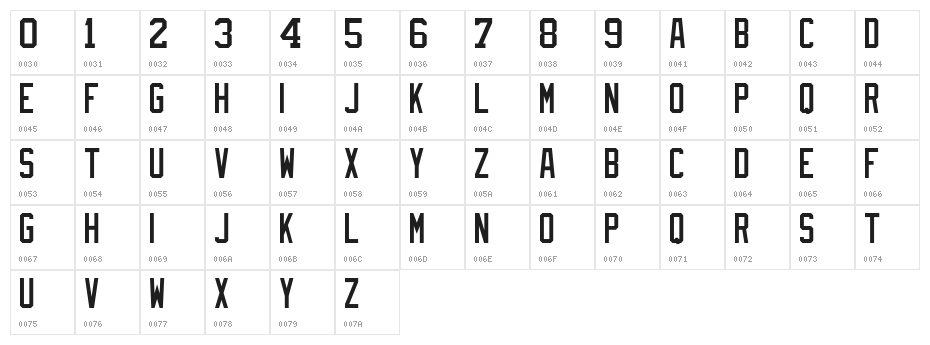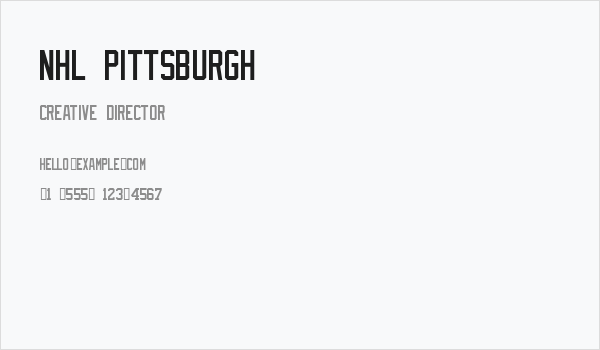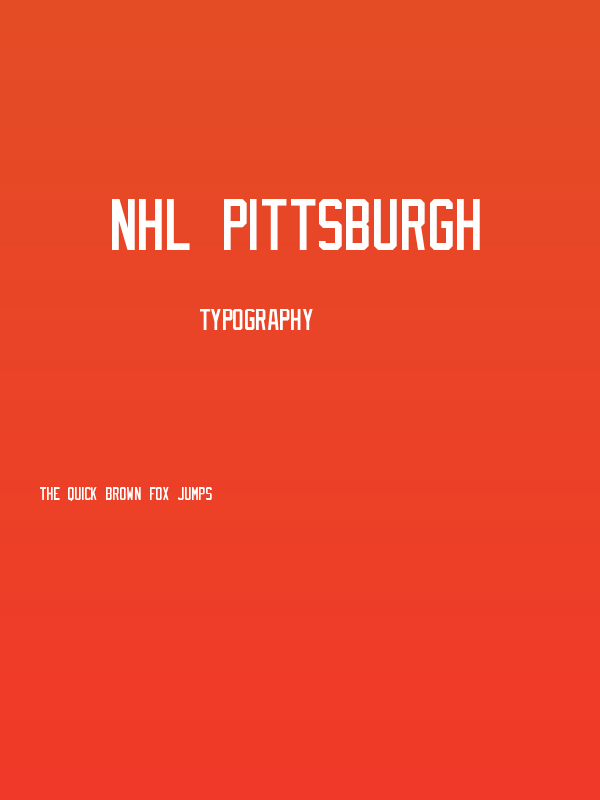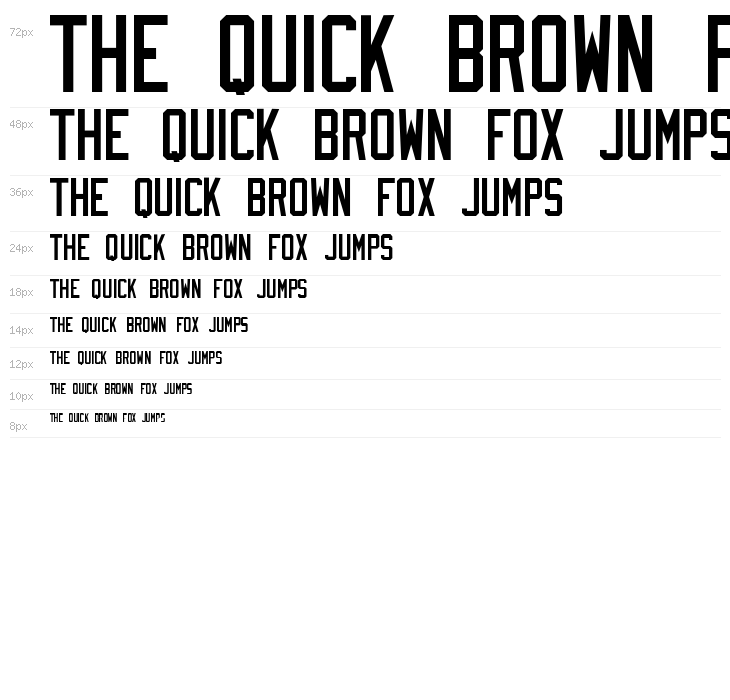
NHL Pittsburgh Font
NHL Pittsburgh Description
This font features a bold, geometric design with strong, angular lines and a commanding presence. The uppercase letters are uniform in height, creating a cohesive and structured appearance. The numerals are equally bold, maintaining the same geometric style, which ensures consistency across all characters. The absence of lowercase letters and special characters suggests a focus on simplicity and impact. The font's design is reminiscent of sports or team branding, with a robust and confident style that stands out in any application.
| Use Case | Logos, Headlines |
| Proposed Projects | Perfect for sports team branding, merchandise, posters, and any project requiring a bold, impactful typeface. |